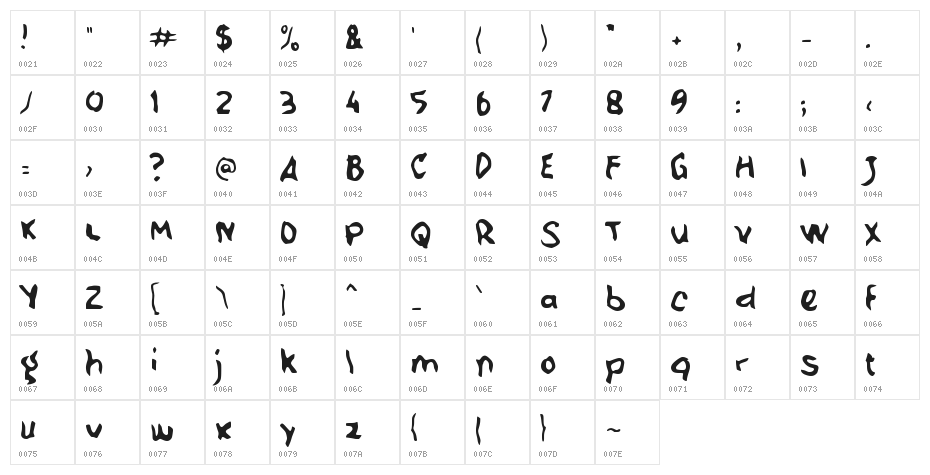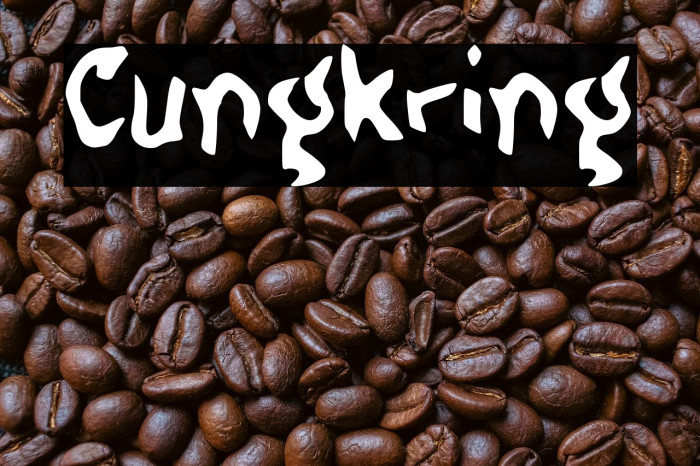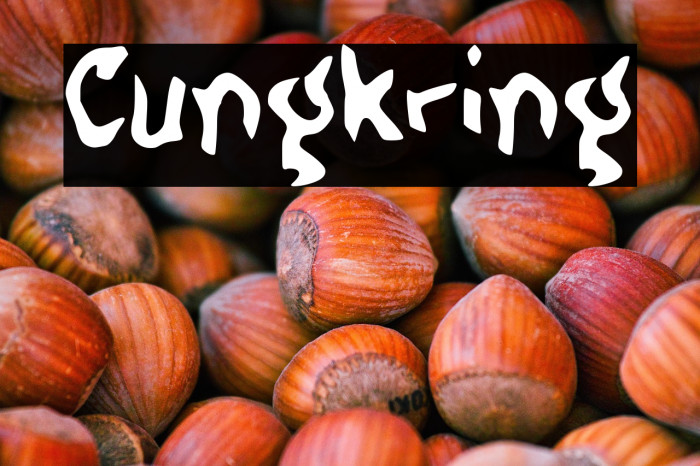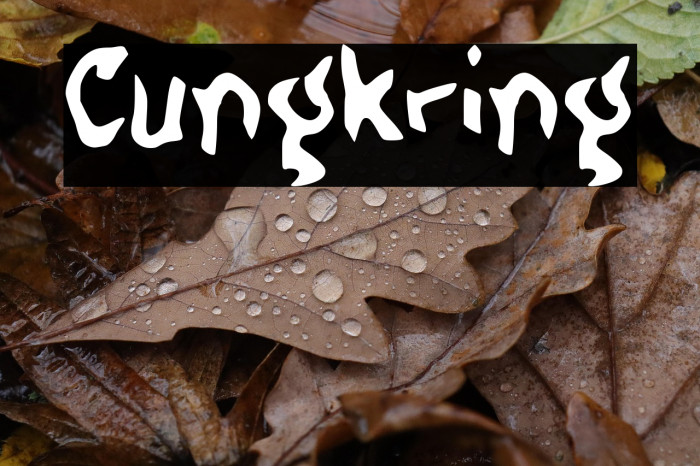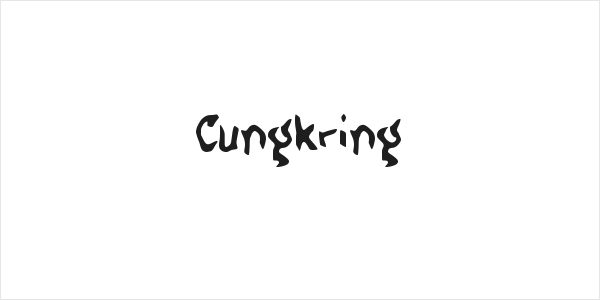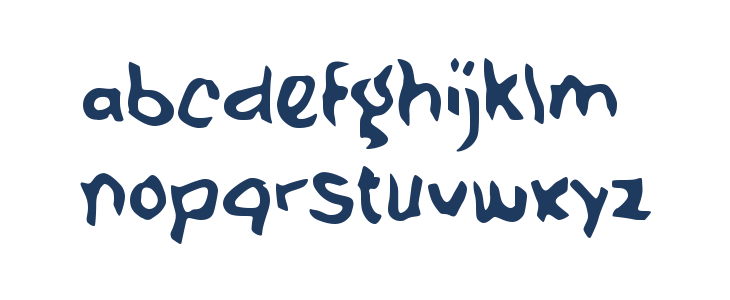
Cungkring Font
Cungkring Description
This font exhibits a playful and organic style, characterized by its irregular and hand-drawn appearance. The letters have a whimsical, almost cartoonish quality, with uneven strokes and varying thicknesses that give it a lively and dynamic feel. The uppercase and lowercase letters maintain a consistent style, with rounded edges and a slightly slanted orientation. The numbers and special characters follow the same quirky design, making the font suitable for creative and informal applications. Its unique personality makes it stand out, perfect for projects that require a touch of fun and creativity.
| Proposed Projects | Ideal for children's books, playful branding, creative posters, and informal invitations. |